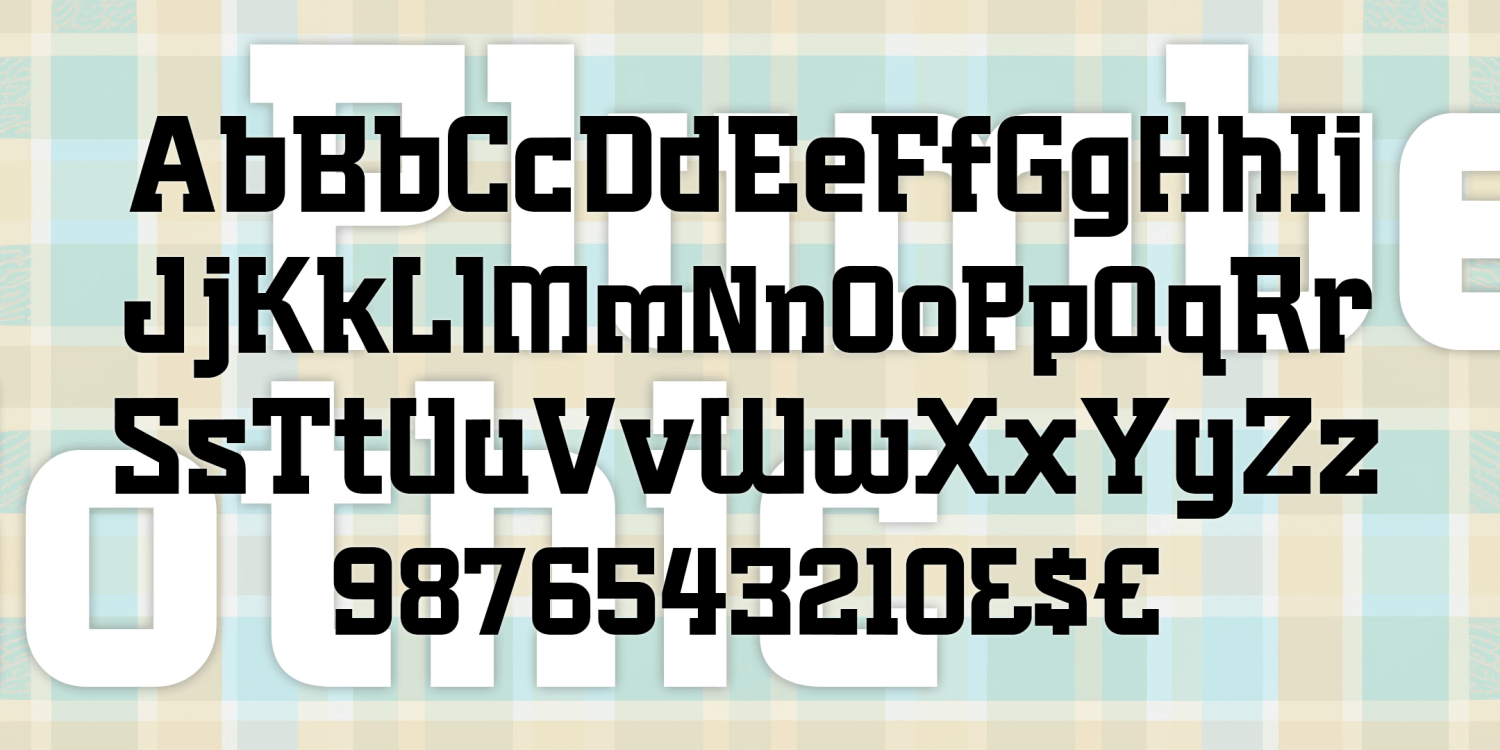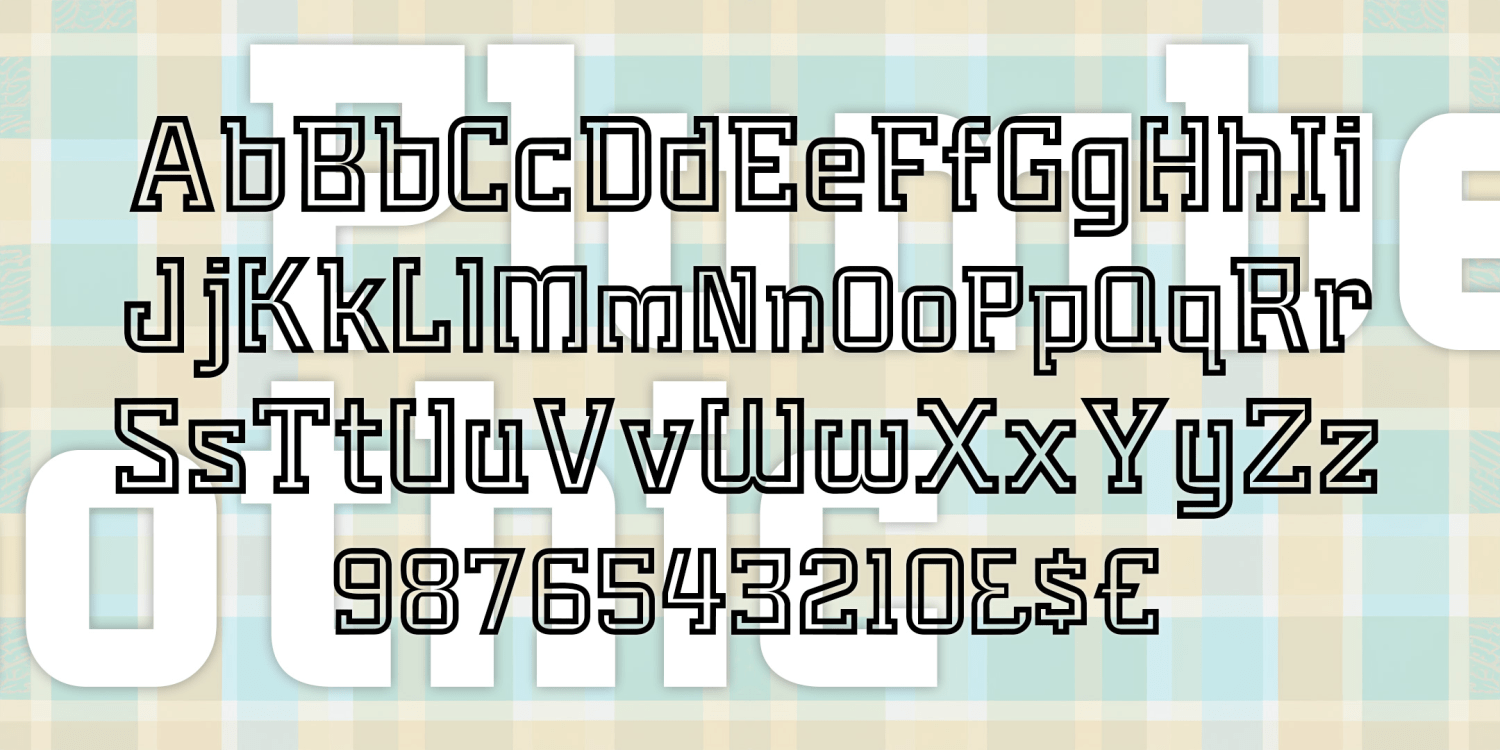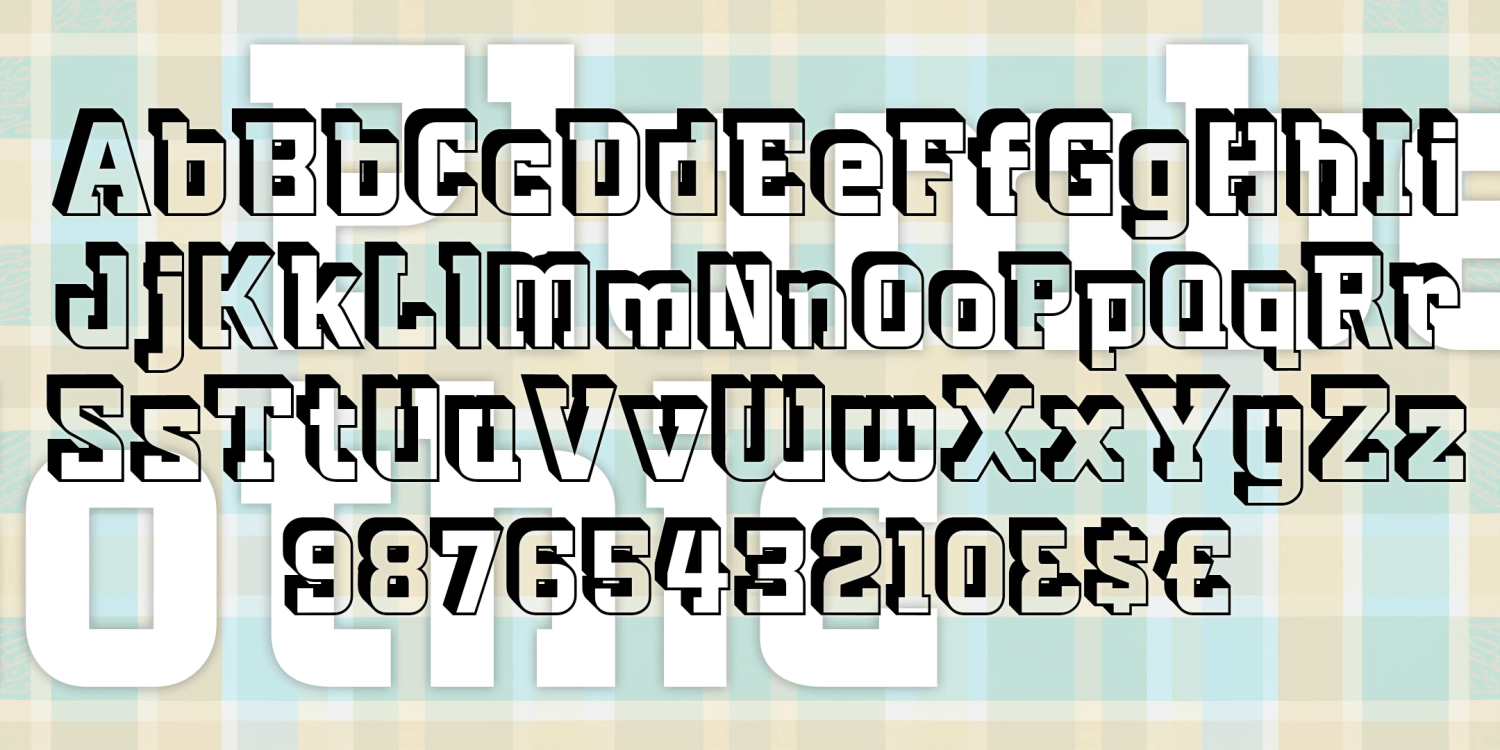
Plumbers Gothic
PLUMBERS GOTHIC is a bold font that looks like it was made of pipes and pipe fittings like elbows. It was inspired by the former 3M logo and font designed by Gerald Stahl & Associates, 1960. Set includes Regular, Inline, and 3D versions.